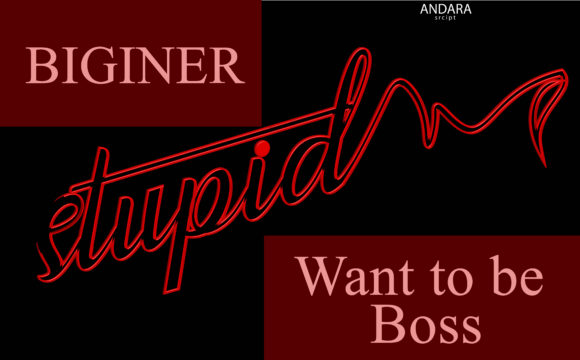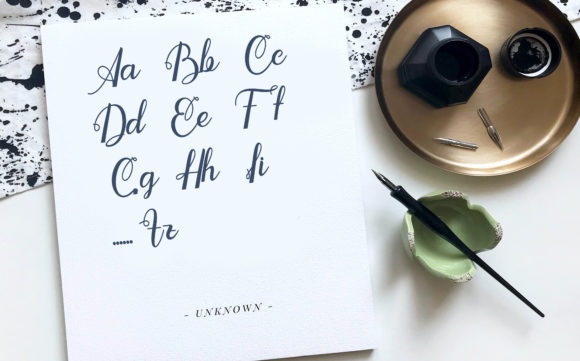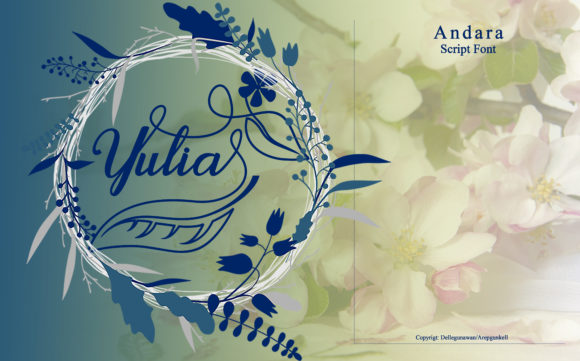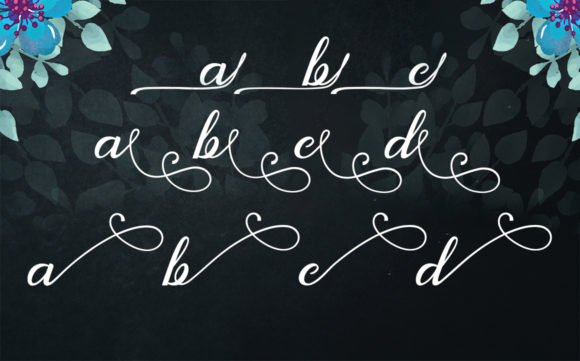
The Andara Font: A Timeless, Handwritten Gem for Your Designs
I’ll never forget the moment I stumbled upon the Andara font. I was working on a project for a client who wanted a elegant, yet playful touch. I had spent hours scouring the internet for the perfect font, but nothing seemed quite right. That was until I saw Andara – its beautiful, flowing script immediately caught my eye. I knew right then and there that it was the one.
So, what makes Andara so special? Let’s dive into the details.
- ✨ Elegant and refined, perfect for projects that need a touch of sophistication
- 🌈 Beautifully crafted with a unique, handmade feel
While Andara is an amazing font, it’s not without its quirks. Here are a few things to keep in mind:
- 🤔 Some users may find the font a bit too ornate for very small font sizes or body text
- ⚠️ Not all characters have perfect kerning, which can affect the overall look of your design
The Story Behind Andara: Designer Inspiration
Andara was designed with the goal of creating a beautiful, timeless script that would evoke a sense of elegance and refinement. The designer, who wishes to remain anonymous, drew inspiration from classic calligraphy and hand-lettering techniques. The result is a font that feels both modern and classic, perfect for a wide range of design projects.
| What type of projects is Andara best suited for? | Andara is perfect for projects that need a touch of elegance and sophistication, such as wedding invitations, luxury branding, and formal events. |